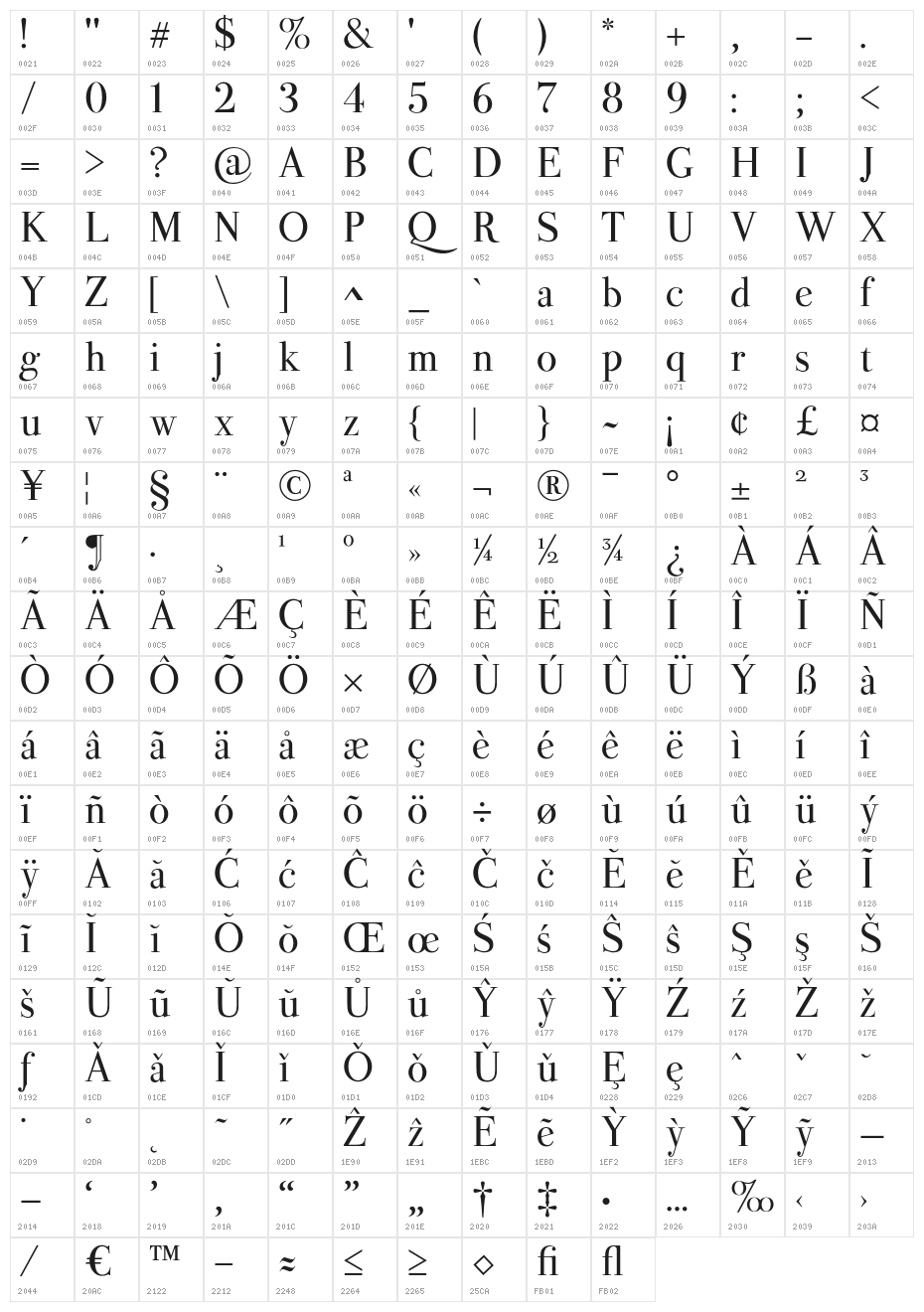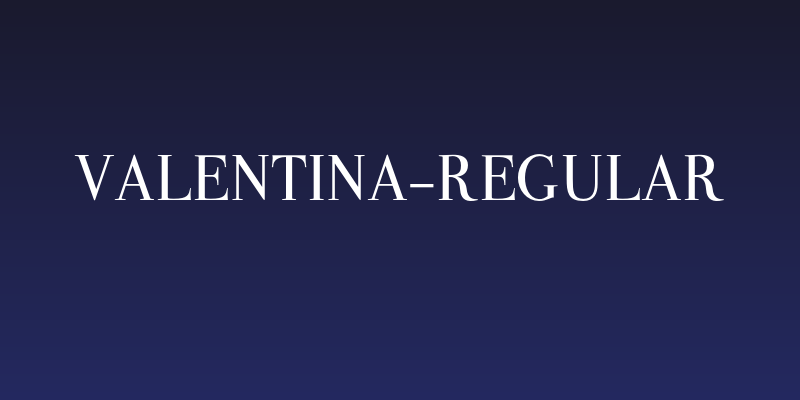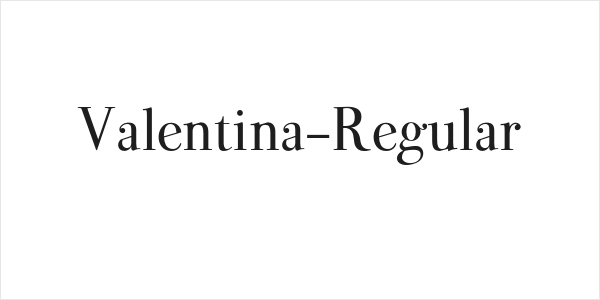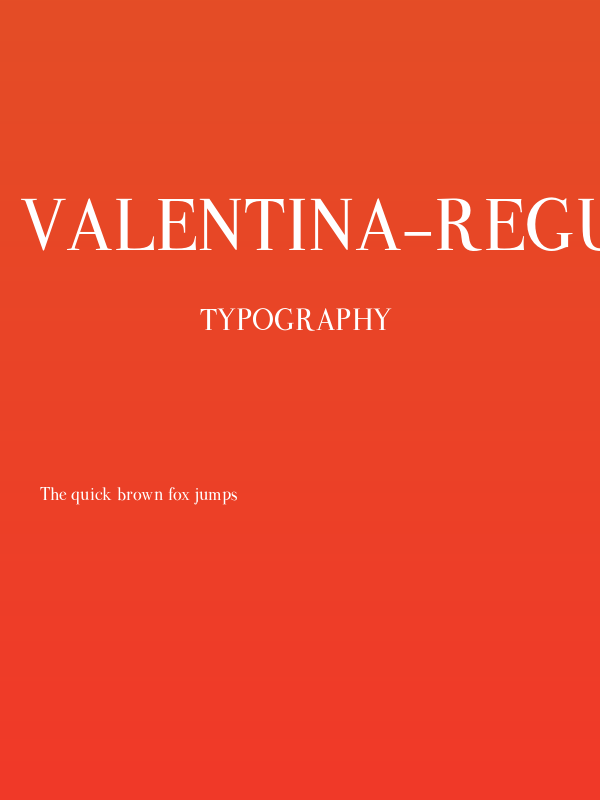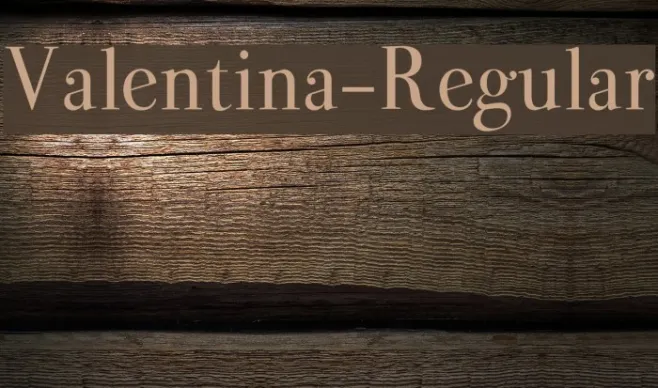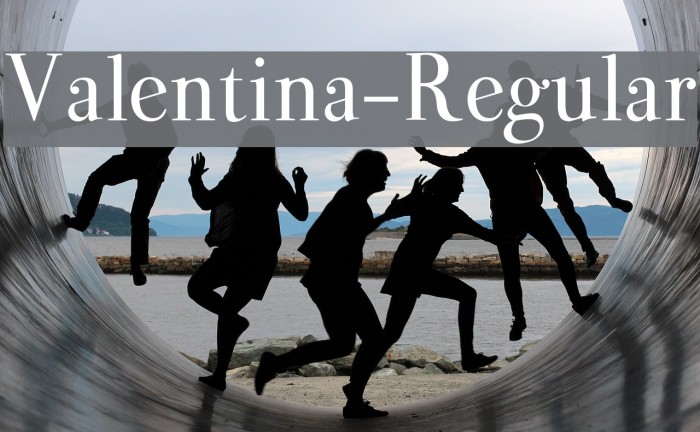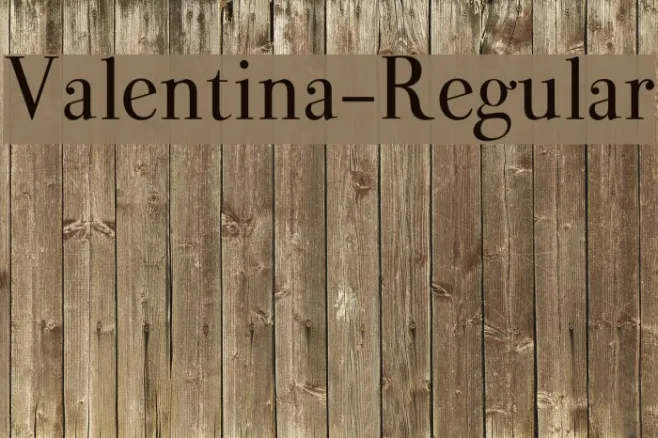
Valentina-Regular Font
Valentina-Regular Description
This font exudes elegance and sophistication with its classic serif design. The characters are well-defined with a high contrast between thick and thin strokes, giving it a refined and polished appearance. The serifs are pronounced and add a touch of traditional charm, while the overall structure remains modern and clean. The uppercase letters are stately and commanding, while the lowercase letters maintain a graceful flow. The numerals are consistent with the font's classic style, and the special characters are thoughtfully designed to complement the overall aesthetic.
| Proposed Projects | Ideal for editorial design, book covers, formal invitations, and branding projects that require a touch of elegance. |